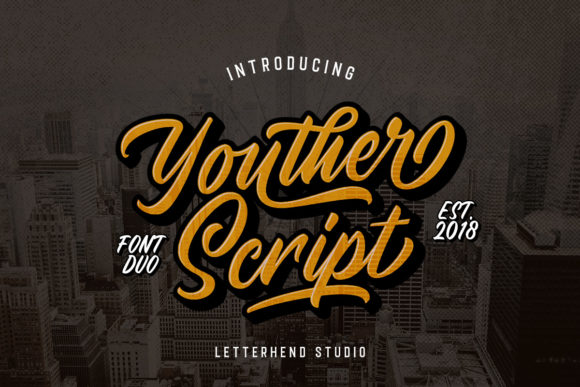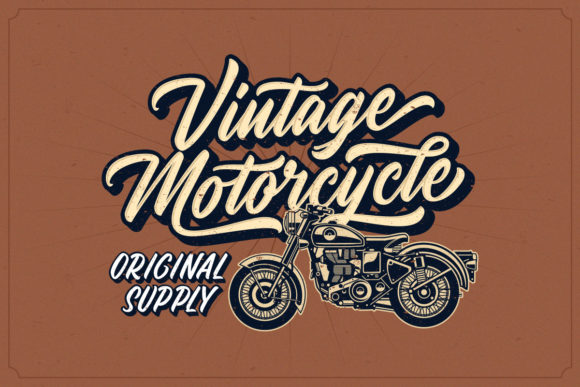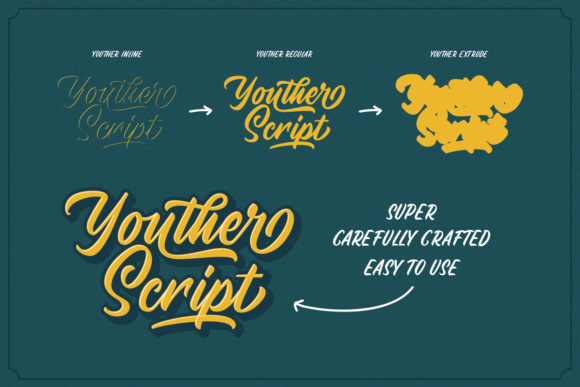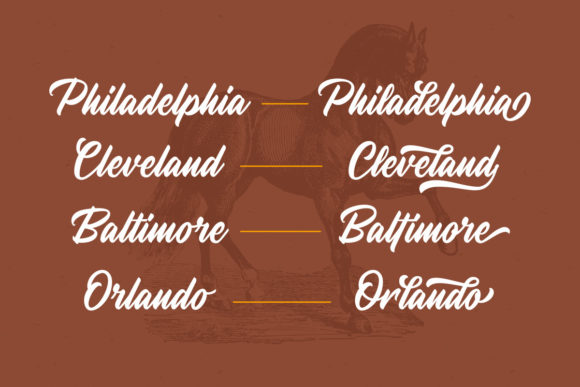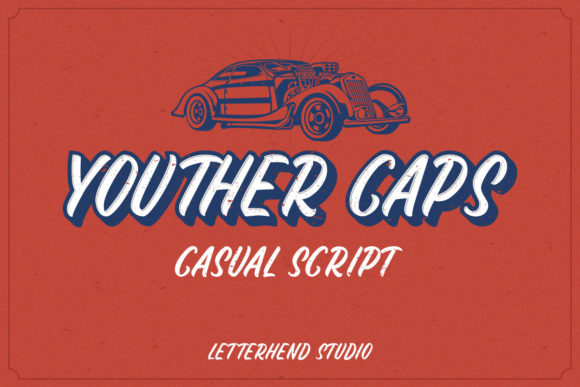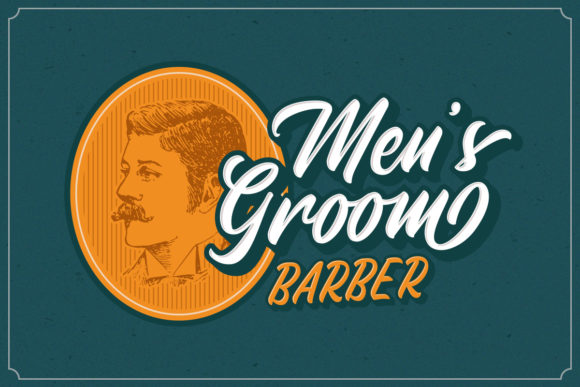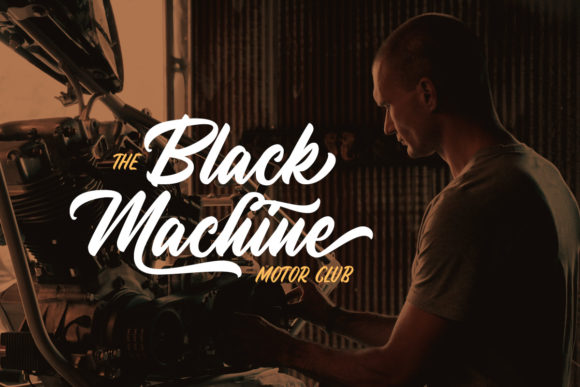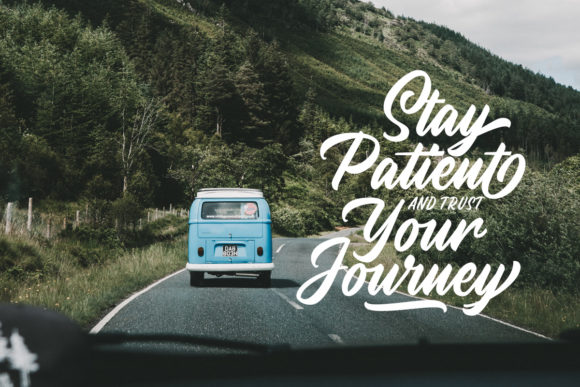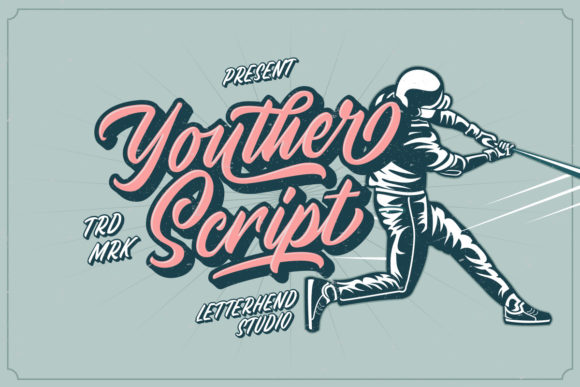
HomeScript FontsYouther Duo Font Script Fonts Youther Duo Font FacebookXPinterestWhatsApp Youther Duo Font Poster 2 Youther Duo Font Poster 3 Youther Duo Font Poster 4 Youther Duo Font Poster 5 Youther Duo Font Poster 6 Youther Duo Font Poster 7 Youther Duo Font Poster 8 Youther Duo Font Poster 9 About Youther Duo Font Youther is an amazing and unique vintage-style font duo! Get inspired by its versatile charm. DOWNLOAD ON CREATIVE FABRICAThis font is sold and delivered by Creative Fabrica. Font Canyon may earn a commission if you buy through this link. People also explored Tarboots Font Braveheart Font Garaigit Font Nantiya Font Vincent Familiante Rusticate Font Instant Karma Font Broken Heart Font Katalyna Script Font 345 0 TagsYouther Duo Font Previous articleDiana Webber Family FontNext articleNervous Font LEAVE A REPLY Cancel reply Comment: Please enter your comment! Name:* Please enter your name here Email:* You have entered an incorrect email address! Please enter your email address here Website: Save my name, email, and website in this browser for the next time I comment. Personal Use Free BD AsciiMax Personal Use Free Read more about this font Axaxax Bold Personal Use Free Read more about this font Bakk Trieng Personal Use Free Read more about this font Droid Personal Use Free Read more about this font BLOG Where to Buy American Fonts Online in 2024 Where to Buy American Fonts Online: The Ultimate Guide for 2024 Looking for the perfect American font to elevate your design projects? You're in the... Modern Sans-Serif Fonts That Brands Love in 2025 Exploring Font Trends Top 7 Google Fonts Alternatives for Faster and Privacy-Friendly Web Design (2025)